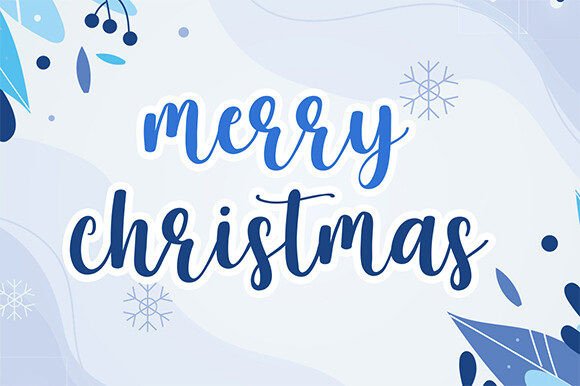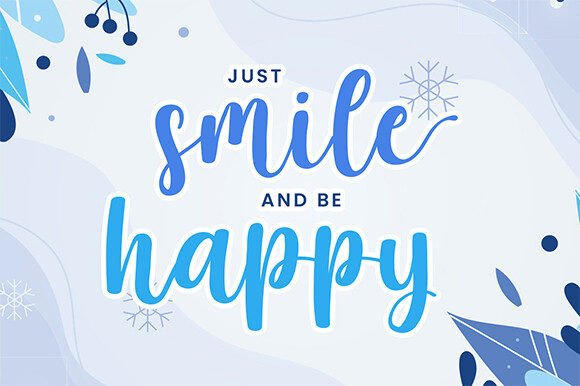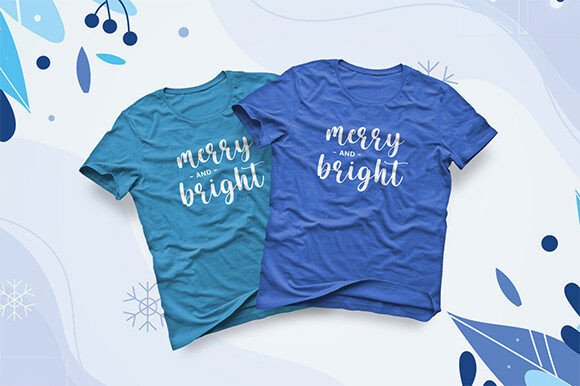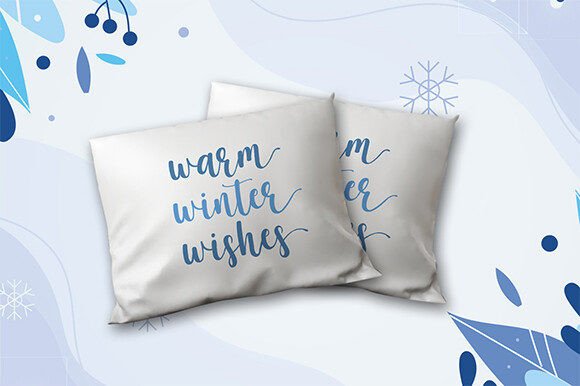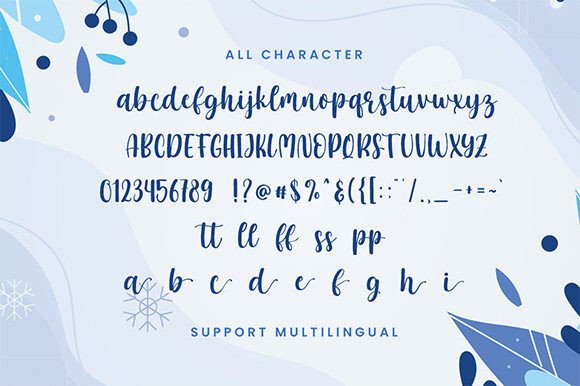
Introduction to Christmas Everyone Font
It’s that time of the year again – the snow is falling, the hot cocoa is brewing, and the creativity is flowing! As designers, we’re always on the lookout for the perfect fonts to bring our ideas to life. And what better way to do that than with a beautiful, modern script font that screams joy and festivity? Enter the Christmas Everyone Font, a stunning design resource that’s about to become your new go-to for any children’s activity or Christmas project.
With its playfulness and authenticity, this font is a high-quality addition to any designer’s toolkit. And the best part? It’s PUA encoded, making it easy to access all the glyphs and swashes you need to create a truly unique and eye-catching design. Whether you’re working on a free download or a paid project, the Christmas Everyone Font is sure to bring a smile to your client’s face and a touch of magic to your creative project.
Key Features of Christmas Everyone Font
- High-quality design: The Christmas Everyone Font is a premium, high-quality design resource perfect for creative projects.
- Unique characteristics: The font features a playful, festive design with bold lines and decorative elements, making it perfect for holiday-themed projects.
- Perfect for creative projects: The Christmas Everyone Font is ideal for use in various creative projects, including greeting cards, posters, and social media graphics.
What works well with this font is its high quality design. The characters are well-formed and have a clear, crisp look that makes them perfect for use in a creative project. The font also includes a transparent background, which makes it easy to use in a variety of different design situations.
- High quality design with well-formed characters
- Perfect for use in creative projects, such as holiday cards or gift tags
⚠️ One limitation of this font is that it’s only available in a few different styles, which may limit its use in more complex design projects.
Overall, I’m really impressed with the Christmas Everyone Font. It’s a great resource for designers who are looking for a high-quality, easy-to-use font for their creative projects.
The Christmas Everyone Font is perfect for any holiday-themed project, including Christmas cards, gift tags, and social media graphics. It’s also a great choice for branding and marketing materials, such as brochures and flyers.